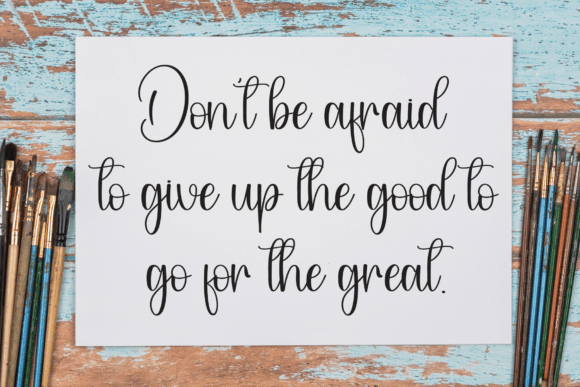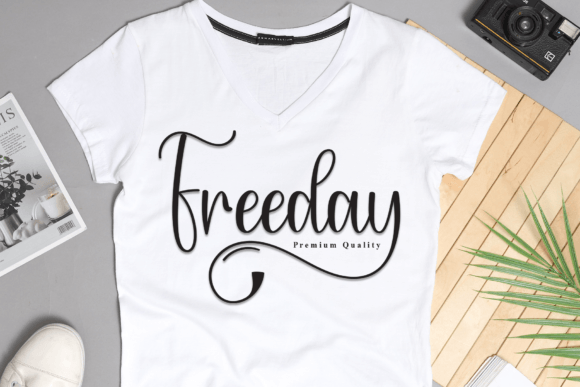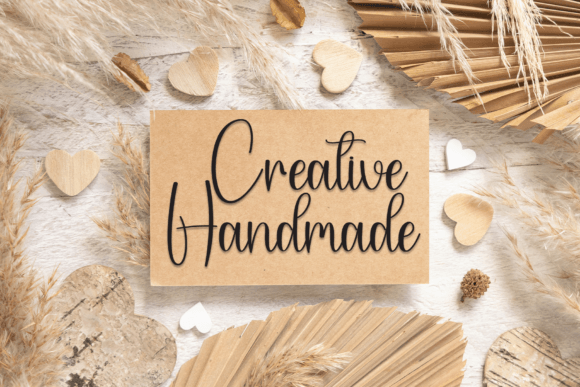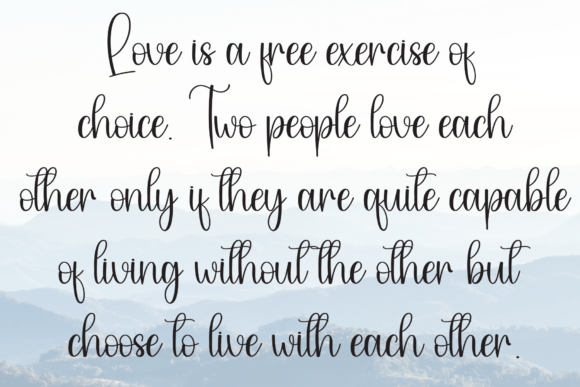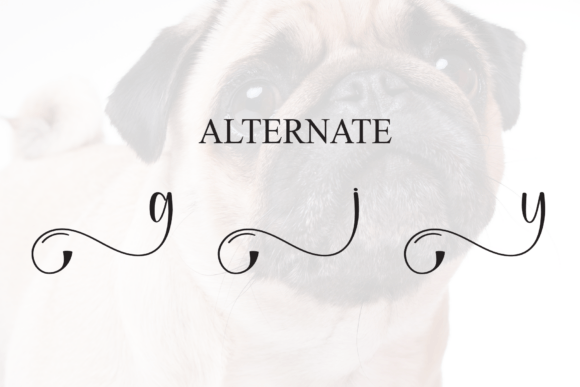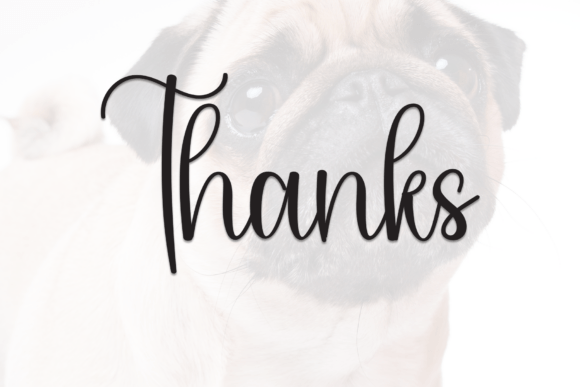
Bulldog Font: Elevate Your Creativity with Elegance
In the world of typography, few fonts manage to capture the essence of elegance and creativity as effortlessly as the Bulldog Font. This magical script font has been carefully crafted with a touch of sophistication, making it an ideal choice for designers, crafters, and anyone looking to add a dash of artistry to their projects. Whether you’re curating a visually appealing Instagram feed or working on DIY projects that demand a personal touch, Bulldog Font is your gateway to transforming ideas into true pieces of art.
The Essence of Bulldog Font
Bulldog Font stands out in the realm of script fonts due to its unique blend of elegance and playfulness. Its carefully designed letters exude a sense of luxury and refinement, making it perfect for projects that require a high level of sophistication. From wedding invitations and branding materials to social media graphics and personal crafts, Bulldog Font brings a versatile charm that can elevate any design.
Key Features of Bulldog Font
- Elegant Script Design: Each letter in the Bulldog Font is meticulously designed to provide a flowing, elegant look that captures the eye.
- Versatility: Its adaptability makes it suitable for a wide range of projects, from digital graphics to print materials.
- Easy to Read: Despite its decorative nature, Bulldog Font maintains a high level of readability, making it practical for use in various contexts.
- Perfect for DIY Projects: With Bulldog Font, you can add a professional touch to homemade crafts, turning them into unique, personalized items.
Using Bulldog Font for Instagram and Social Media
In the visually driven world of Instagram and social media, standing out is key. Bulldog Font can help you achieve just that. Its elegant and distinctive style makes your posts, stories, and bio descriptions more captivating, drawing in followers and boosting engagement. Here are some ideas on how to use Bulldog Font for Instagram:
- Quotes and Captions: Add a touch of elegance to your quotes and captions, making them more memorable.
- Instagram Stories: Use Bulldog Font to create eye-catching stories that stand out in the feed.
- Branding: Consistency is key in branding. Use Bulldog Font across your social media platforms to create a cohesive and recognizable brand identity.
Incorporating Bulldog Font into DIY Projects
For crafters and DIY enthusiasts, Bulldog Font offers endless possibilities. Here are some project ideas where this font can make a significant impact:
- Handmade Cards: Add a personal touch to your greeting cards with beautifully designed lettering.
- Custom Signage: Whether it’s for a special event or home decor, Bulldog Font can help you create elegant signs.
- Journaling and Scrapbooking: Elevate your journal pages and scrapbook layouts with decorative titles and captions.
Tips for Maximizing the Potential of Bulldog Font
- Pair with Complementary Fonts: Experiment with font pairings to find the perfect balance for your design.
- Adjust Size and Color: Don’t be afraid to play with the size and color of the text to match your project’s aesthetic.
- Practice Consistency: For a cohesive look, use Bulldog Font consistently across related projects.
Bulldog Font is more than just a script font; it’s a tool for creativity and self-expression. Its elegant design, versatility, and ease of use make it an invaluable asset for designers, crafters, and anyone looking to add a touch of sophistication to their projects. Whether you’re creating for Instagram, working on DIY crafts, or exploring new design ideas, Bulldog Font is your partner in turning creative visions into stunning realities.